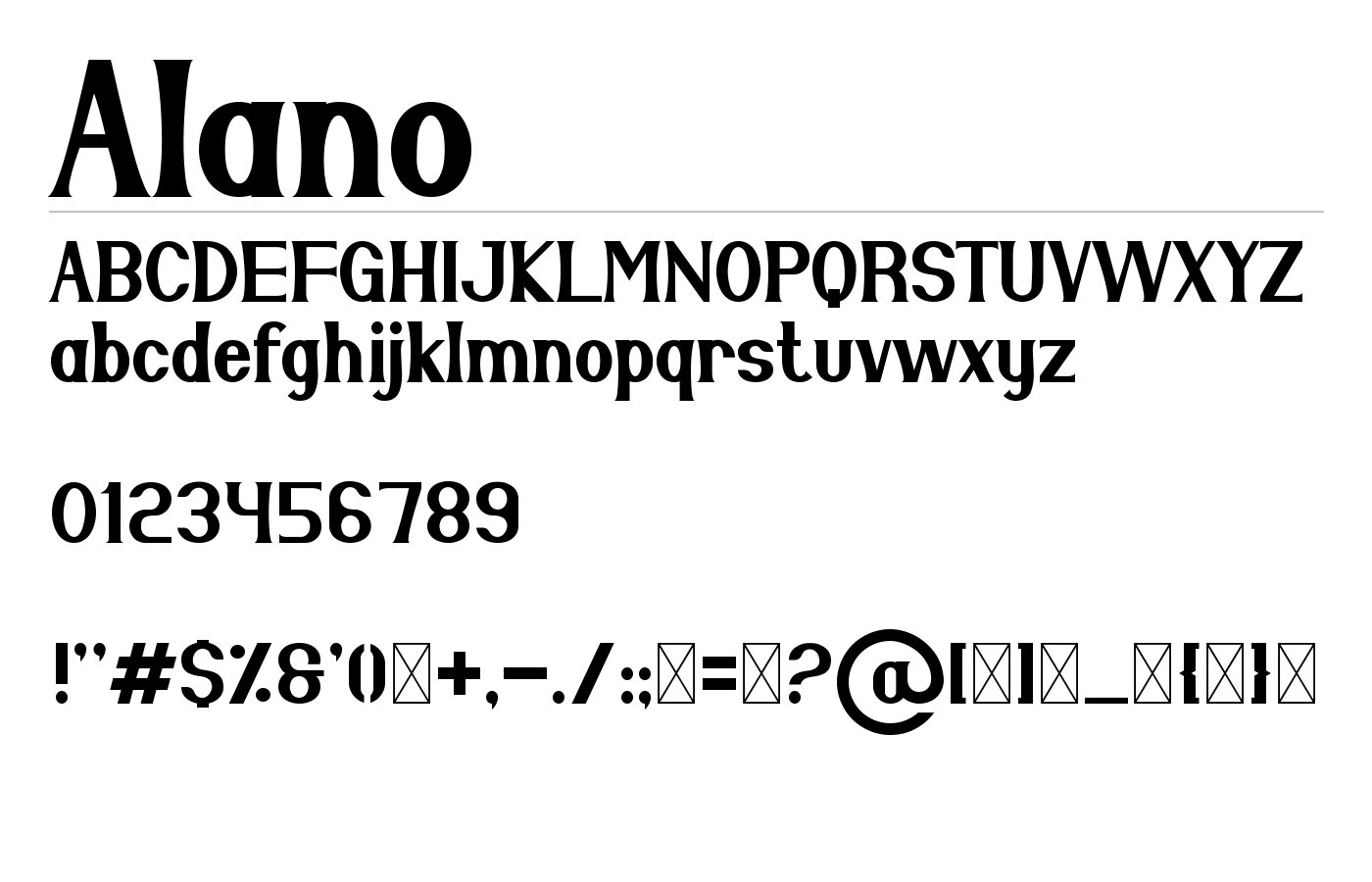
Alano is a bold serif font with a unique blend of classic and modern touches, featuring moderate contrast and slightly condensed letterforms. Its distinctive, slightly quirky shapes give it a strong personality suitable for eye-catching headlines, logos, and editorial designs where a confident, artistic style is desired. This font works well in branding and packaging contexts that seek to combine elegance with a contemporary edge.
Alano Font
About Alano Font